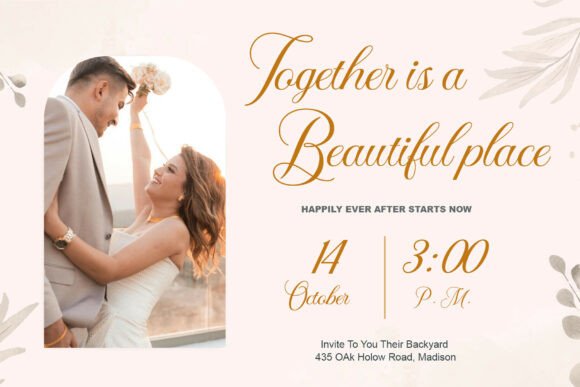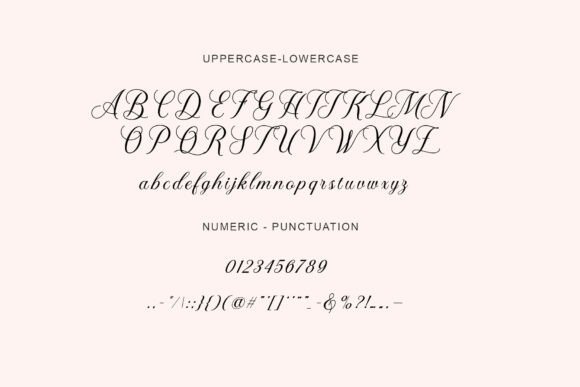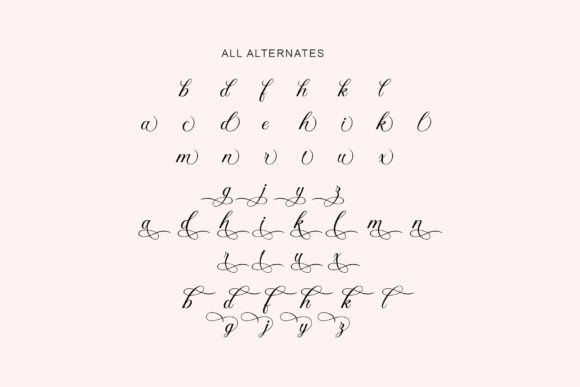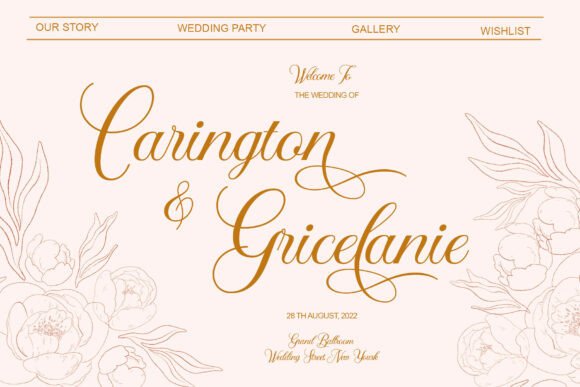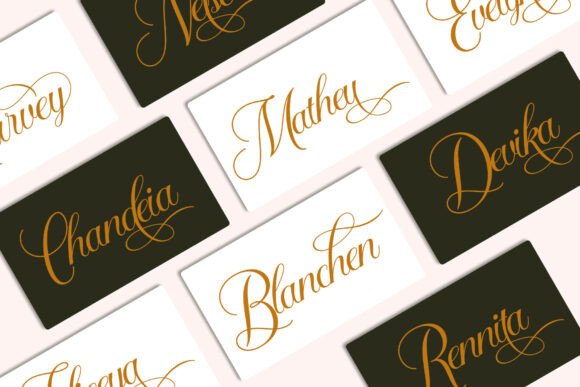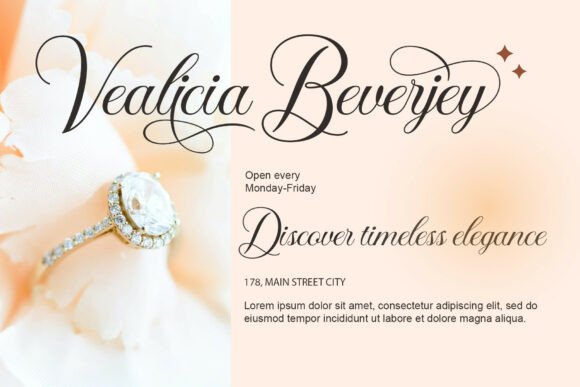
Embracing Luxury with Ashley: The Ultimate Calligraphy Font
I’ll never forget the moment I was working on a high-end branding project for a boutique skincare line. My client wanted a font that exuded elegance and sophistication, but I was struggling to find the perfect fit. That’s when I stumbled upon Ashley, a premium calligraphy font that instantly elevated my design game. In this article, I’ll share my experience with Ashley, its features, and how to make the most of this stunning font in your creative projects.
A Personal Review of Ashley
• ✅ Delicate yet confident weight, perfect for luxury branding and upscale designs
• ✅ Meticulously crafted calligraphy style that exudes refined sophistication
• ✅ Timeless and artisanal touch that adds a touch of class to any design
• ✅ Versatile and suitable for various design applications, from wedding invitations to product packaging
While Ashley is an exceptional font, there are a few things to keep in mind:
• 🤔 May require some adjustments to kerning and tracking for optimal results
• ⚠️ Not suitable for body text or long-form content due to its elegant, yet delicate nature
4. Experiment with OpenType features, such as glyphs and stylistic alternates, to add unique touches to your design
The Story Behind Ashley
Ashley was designed by a team of skilled typographers who aimed to create a font that embodies the essence of luxury and sophistication. Inspired by traditional calligraphy, Ashley combines delicate lines and confident strokes to create a truly unique and elegant font. Whether you’re designing for a high-end brand or a special occasion, Ashley is the perfect choice to add a touch of refinement and class to your project.
Q: What is Ashley’s primary use case?
A: Ashley is designed for luxury branding, upscale wedding invitations, editorial mastheads, and elegant product packaging.
Q: Can I use Ashley for body text?
A: While Ashley is an exceptional font, it’s not recommended for body text or long-form content due to its delicate nature.
Q: Does Ashley support OpenType features?
A: Yes, Ashley supports OpenType features, including glyphs and stylistic alternates, which can be accessed in compatible design software.